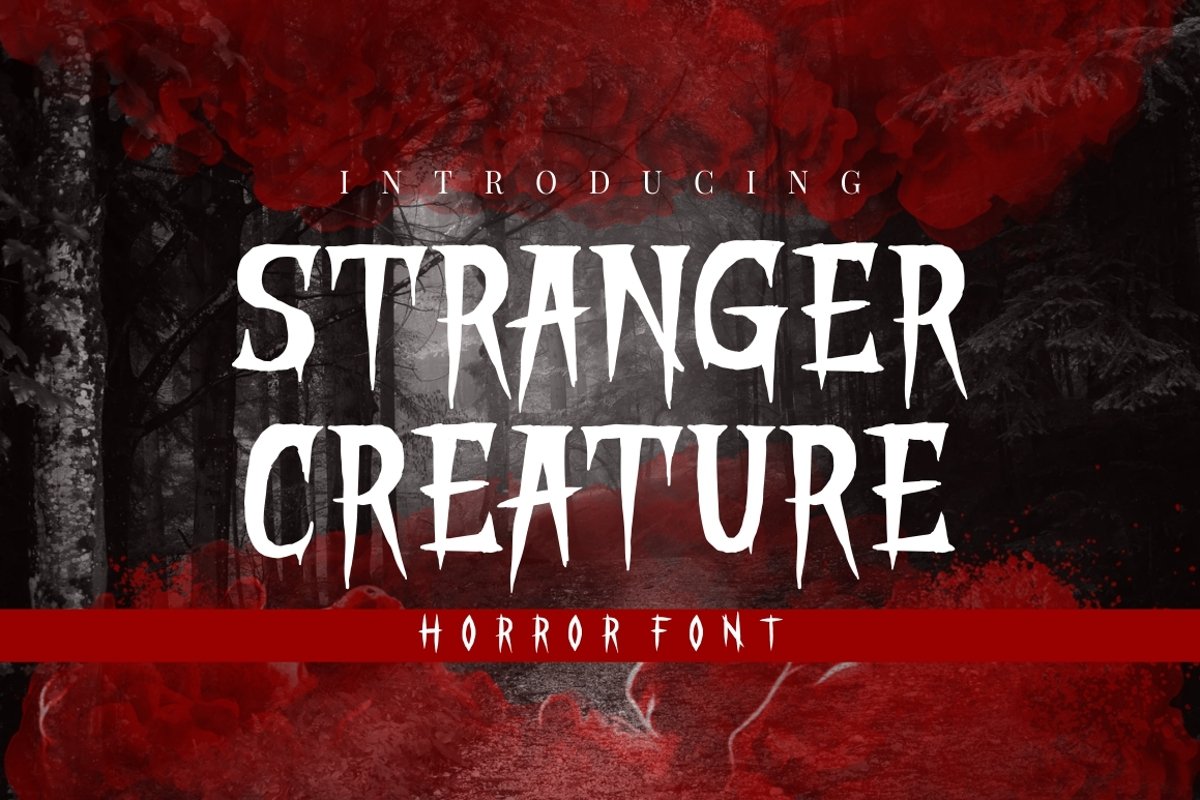
Introducing ... STRANGER CREATURE - HORROR DISPLAY FONT
STRANGER CREATURE is a horror style display font. Inspired from horror thriller movie.
This font designed for Halloween, Horror, Thriller and Scary theme projects.
STRANGER CREATURE would be perfect for Logo, Quotes, apparel, comic, cover books, cards, posters, or anything that requires a horrror or scarylook